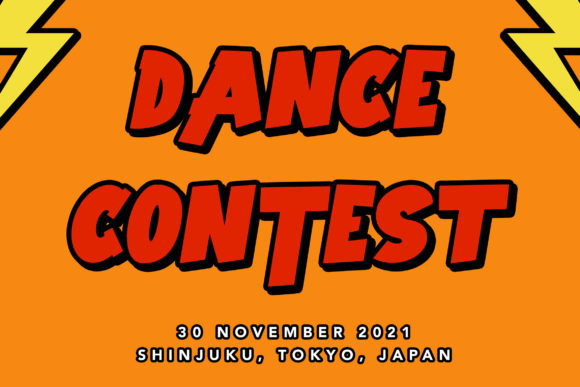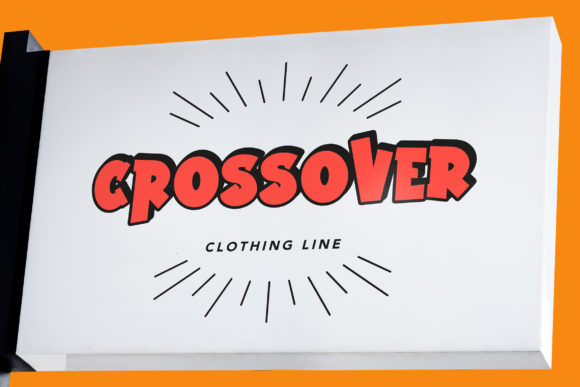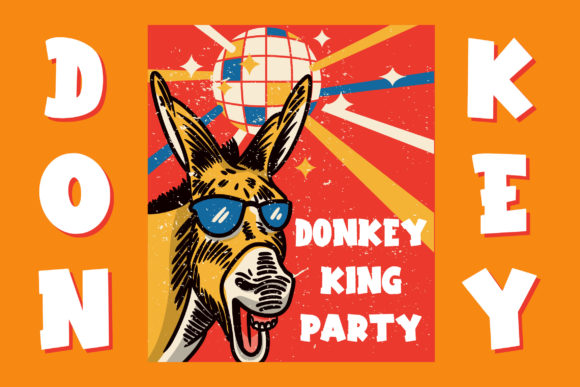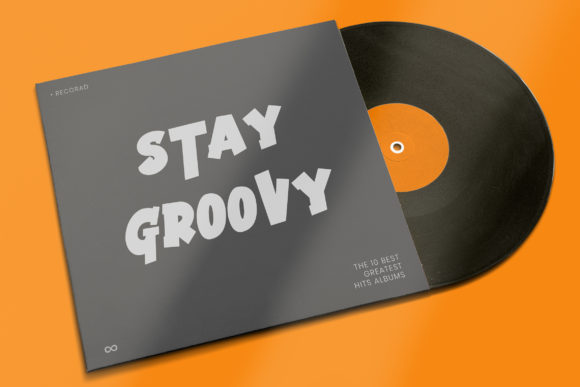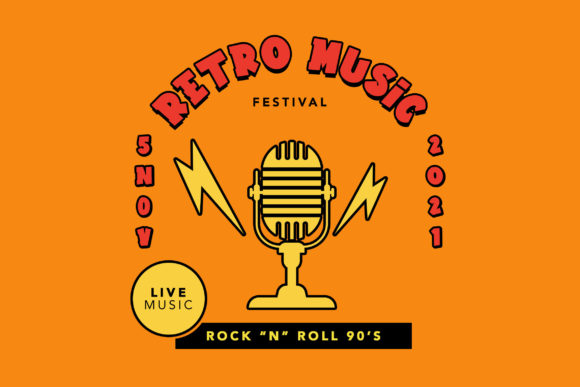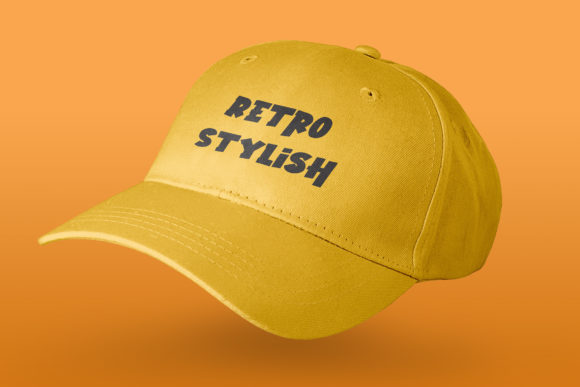
Introduction to Funny Party Font
Funny Party is a cute and colorful display font.
It embodies playfulness and authenticity and is the perfect choice for any children activity or school project Funny Party is PUA encoded which means you can access all of the glyphs and swashes with ease.
Key Features of Funny Party Font